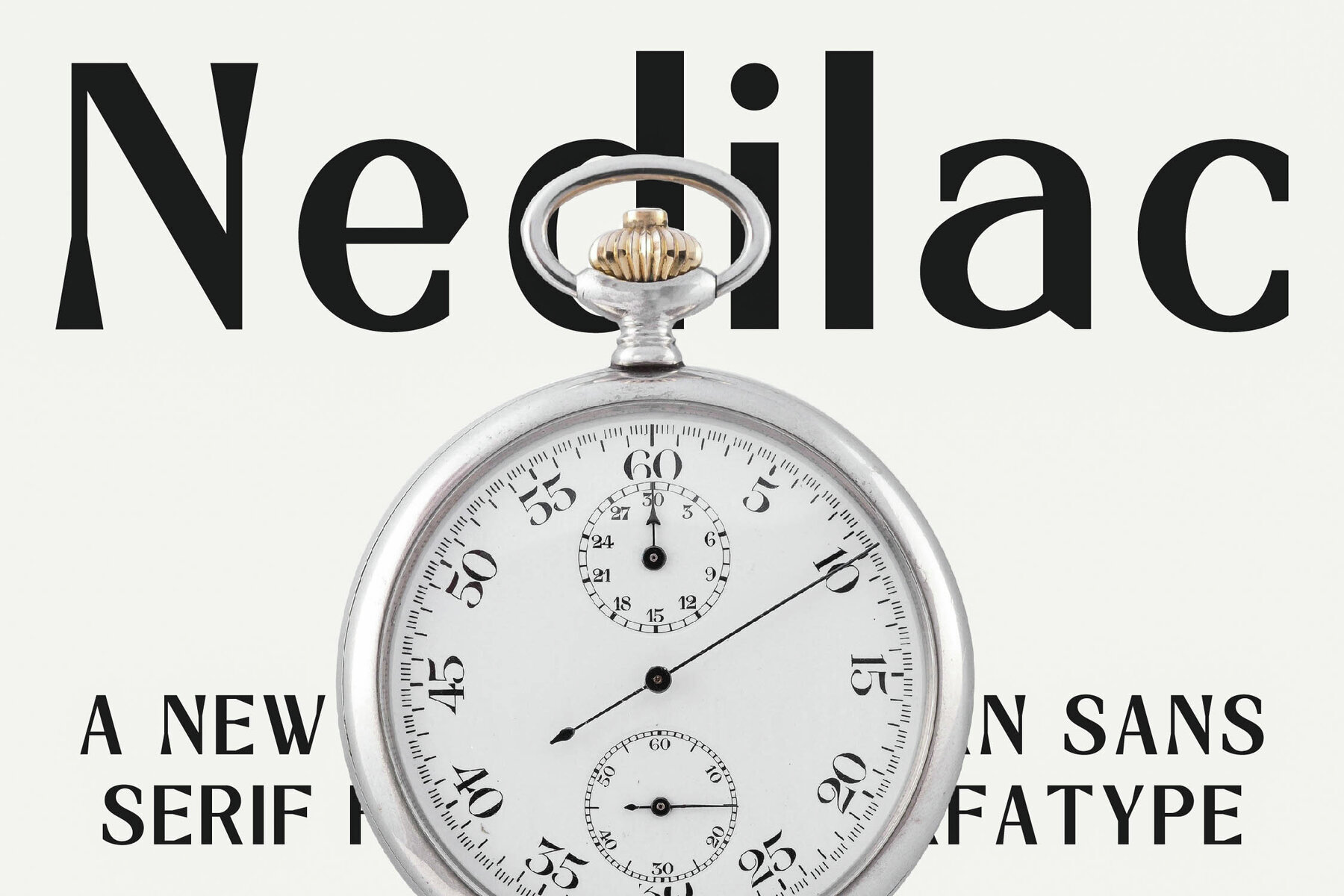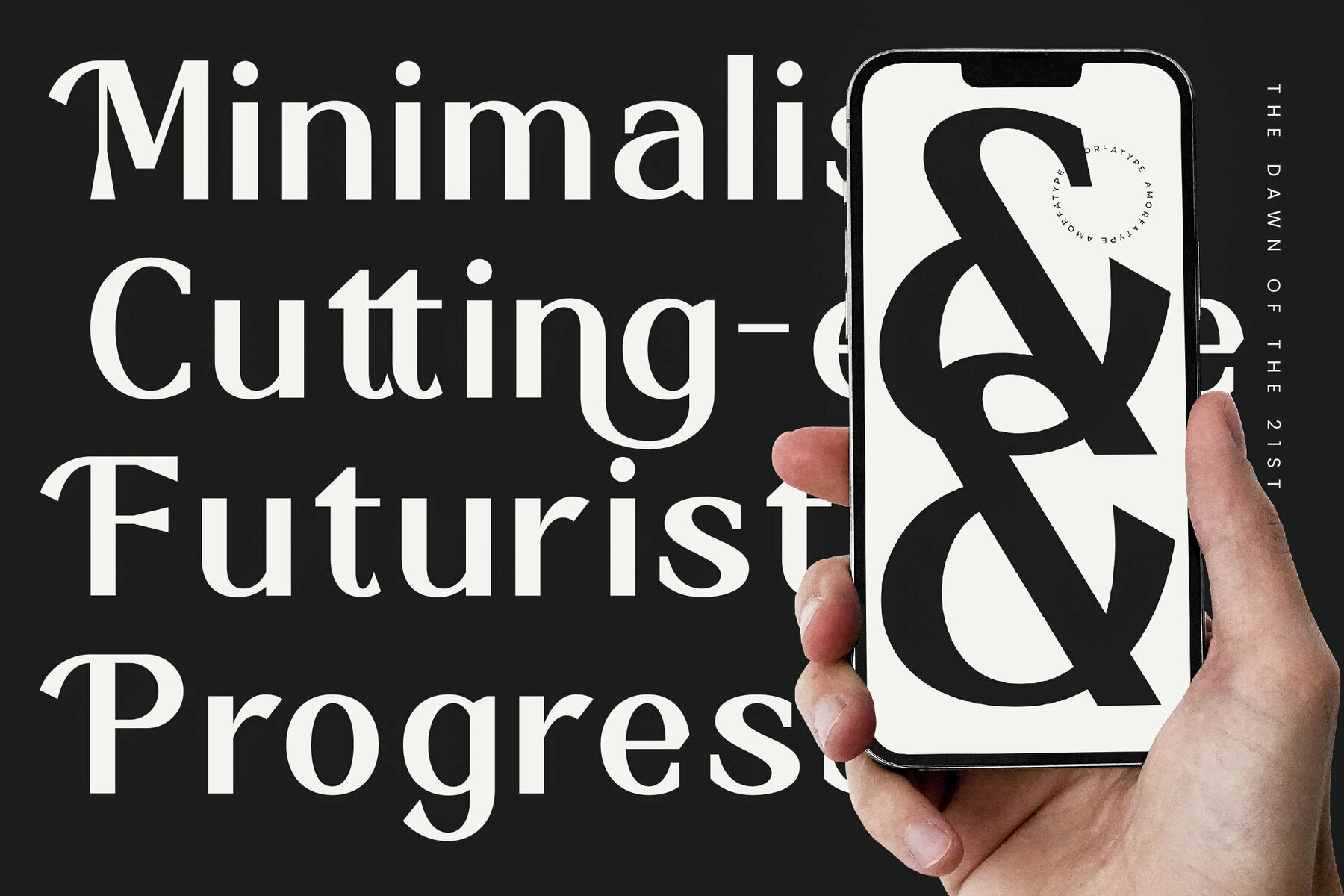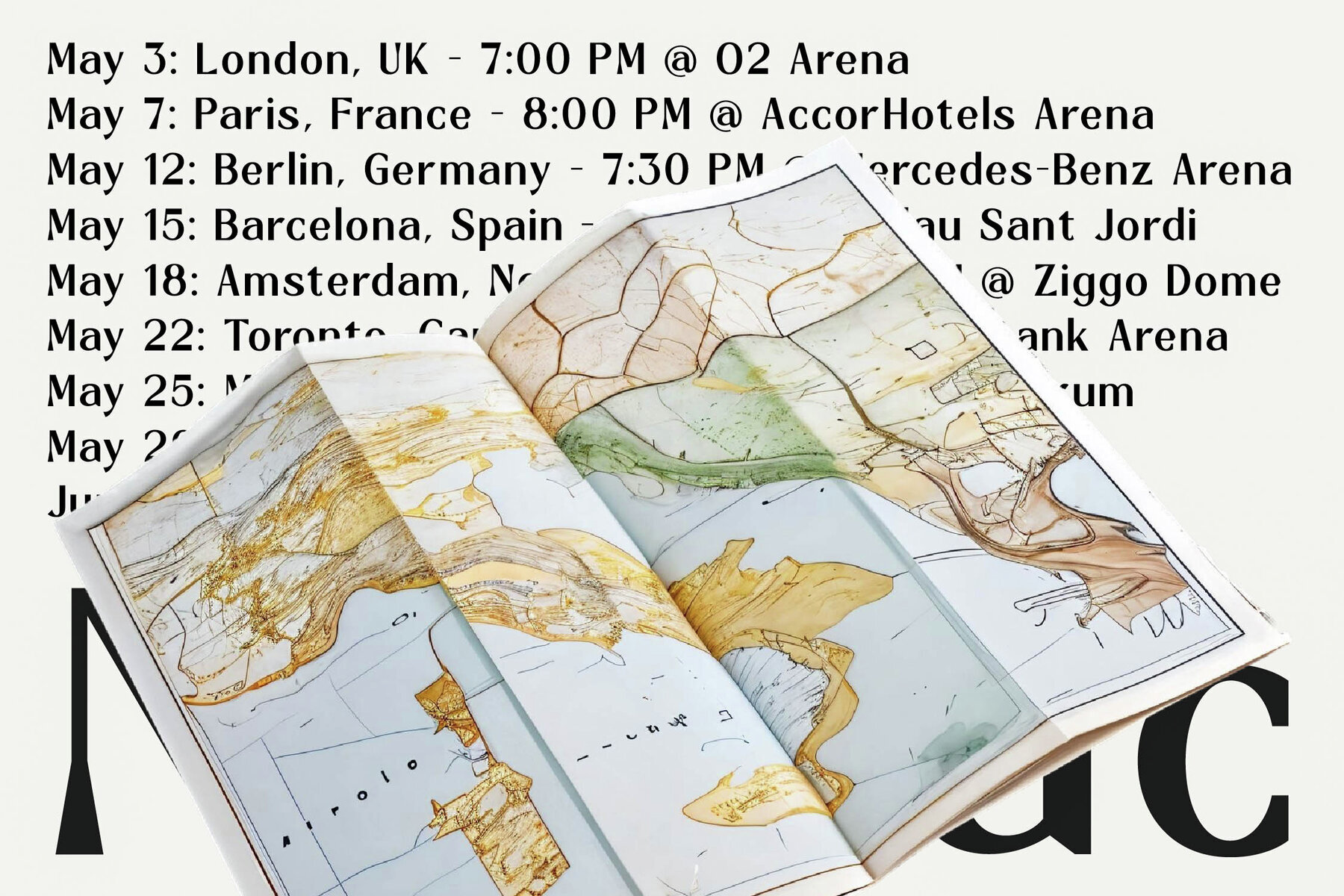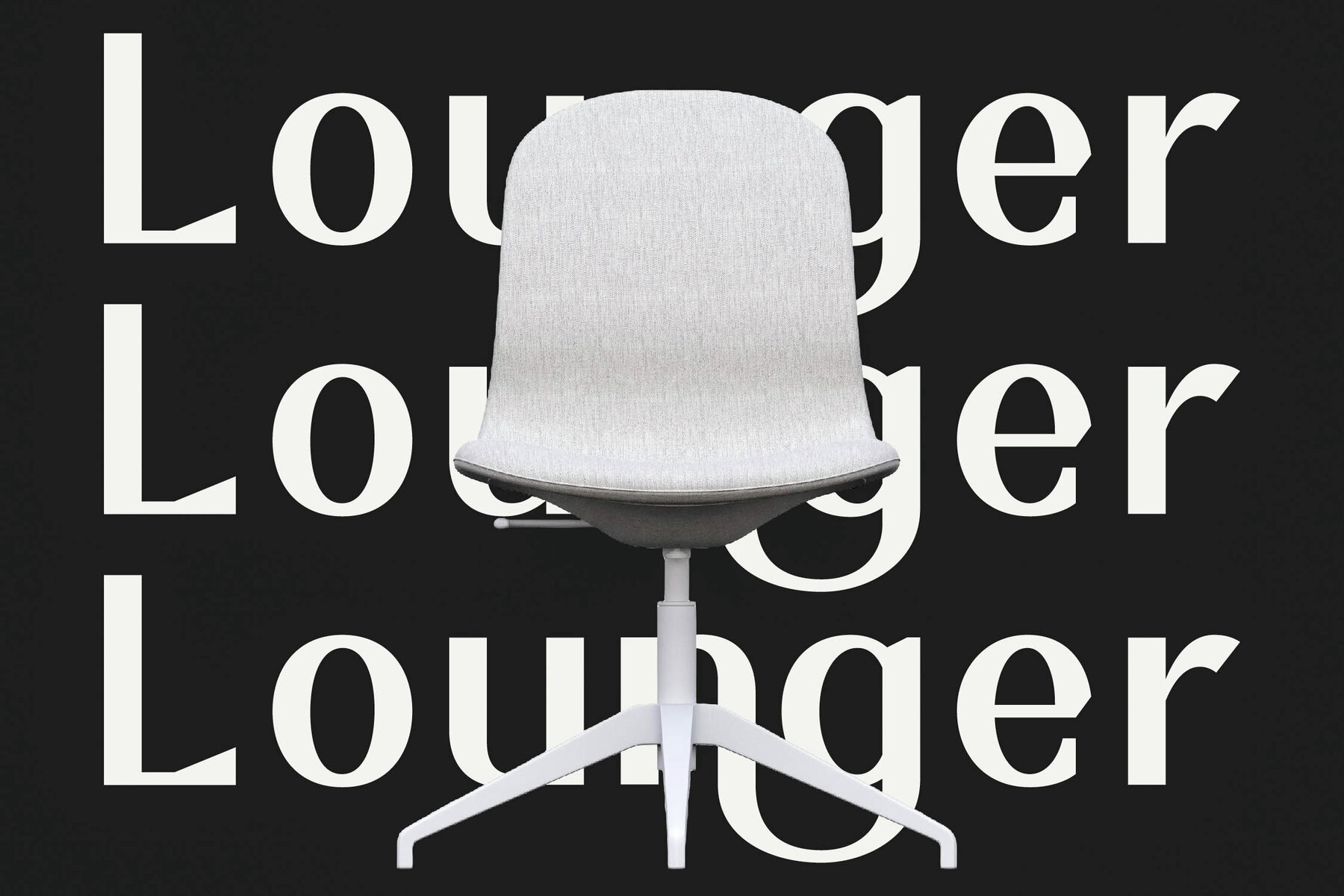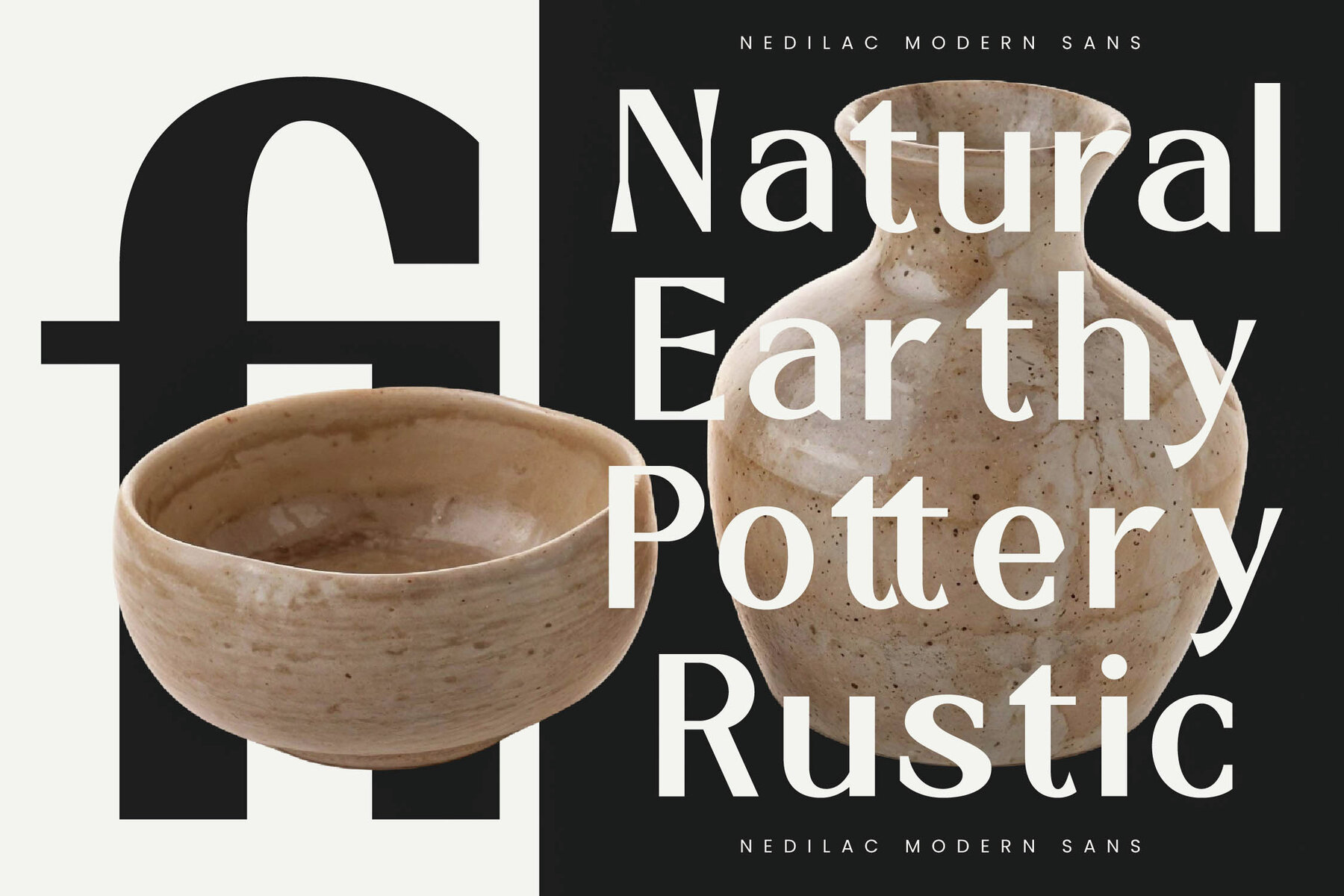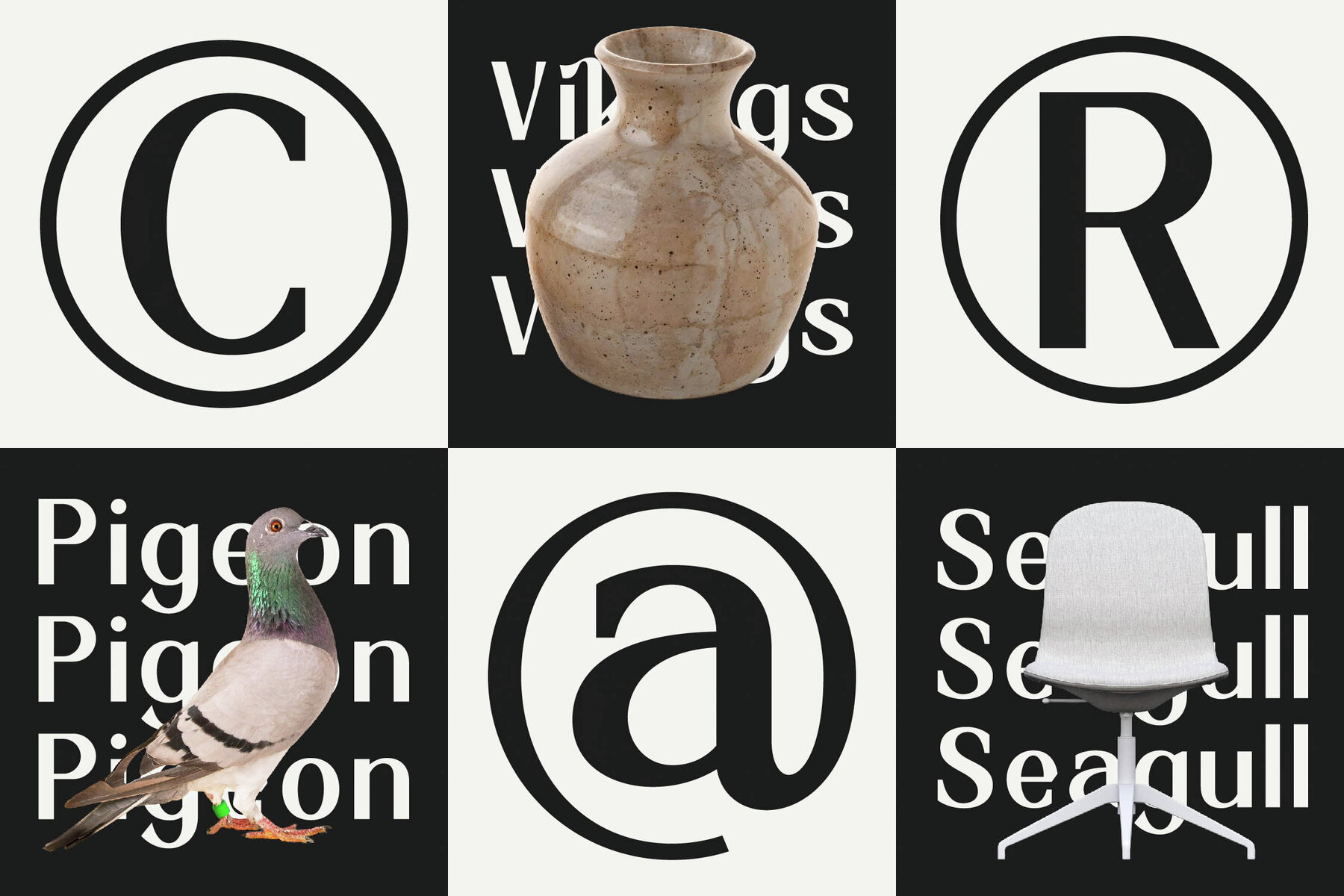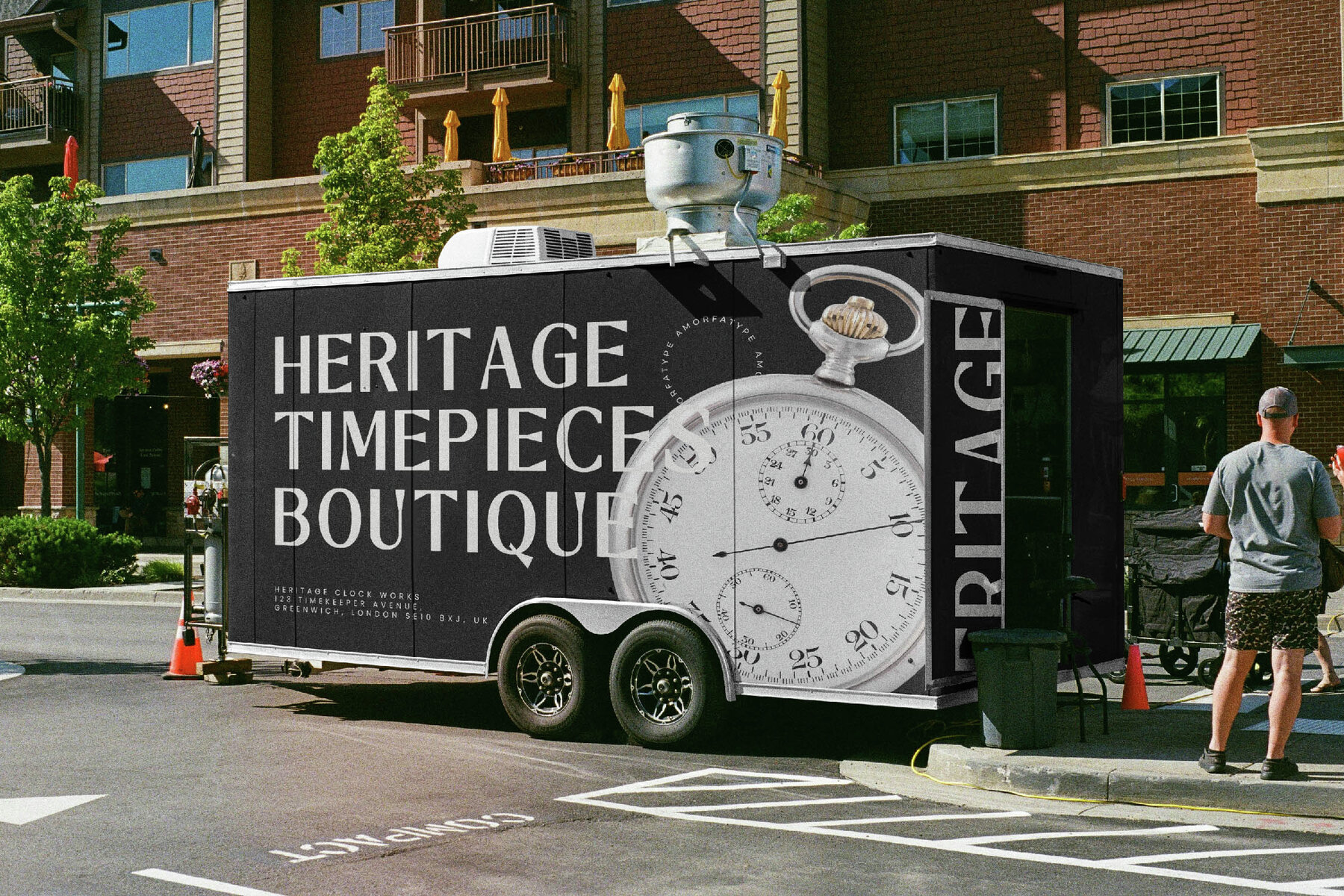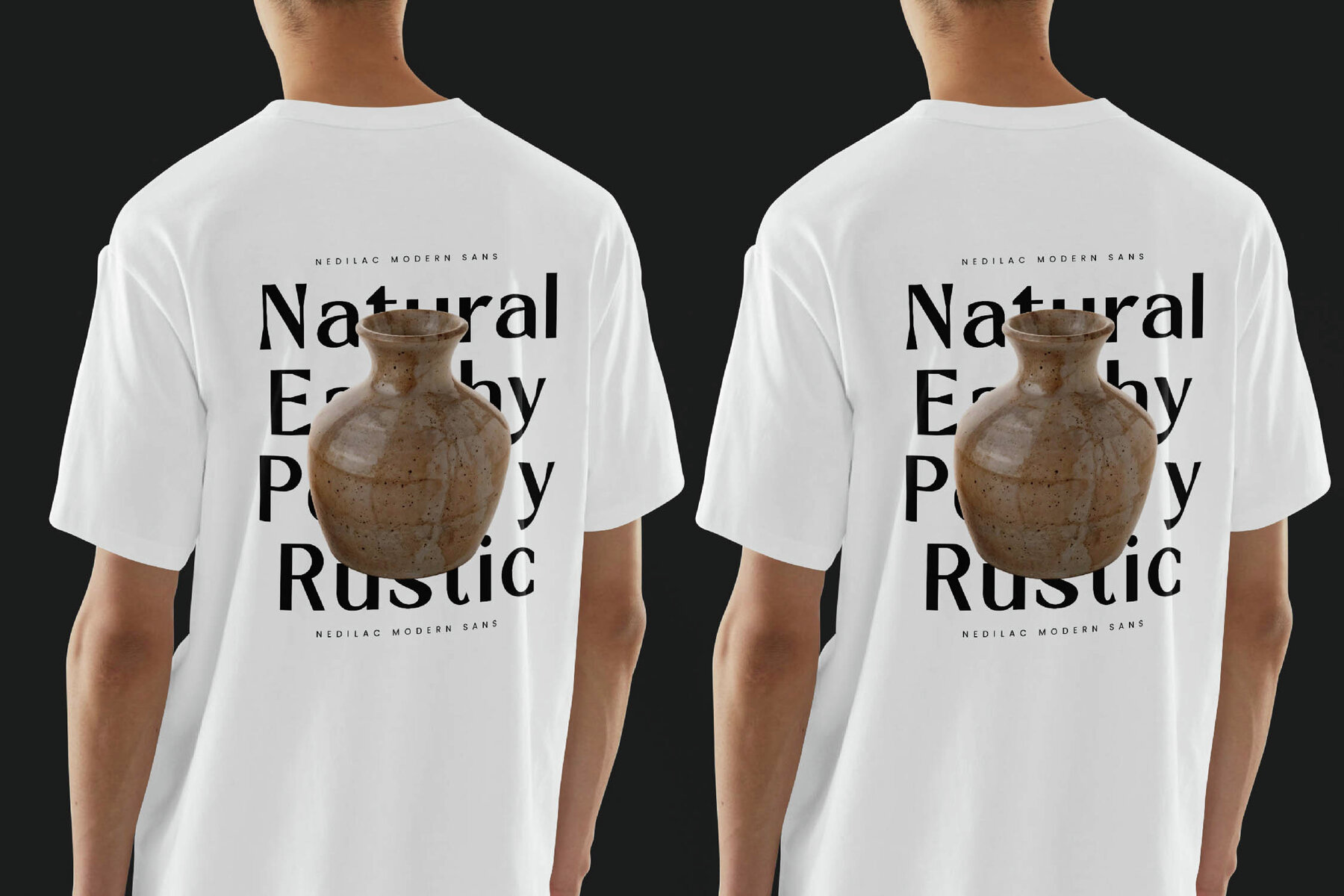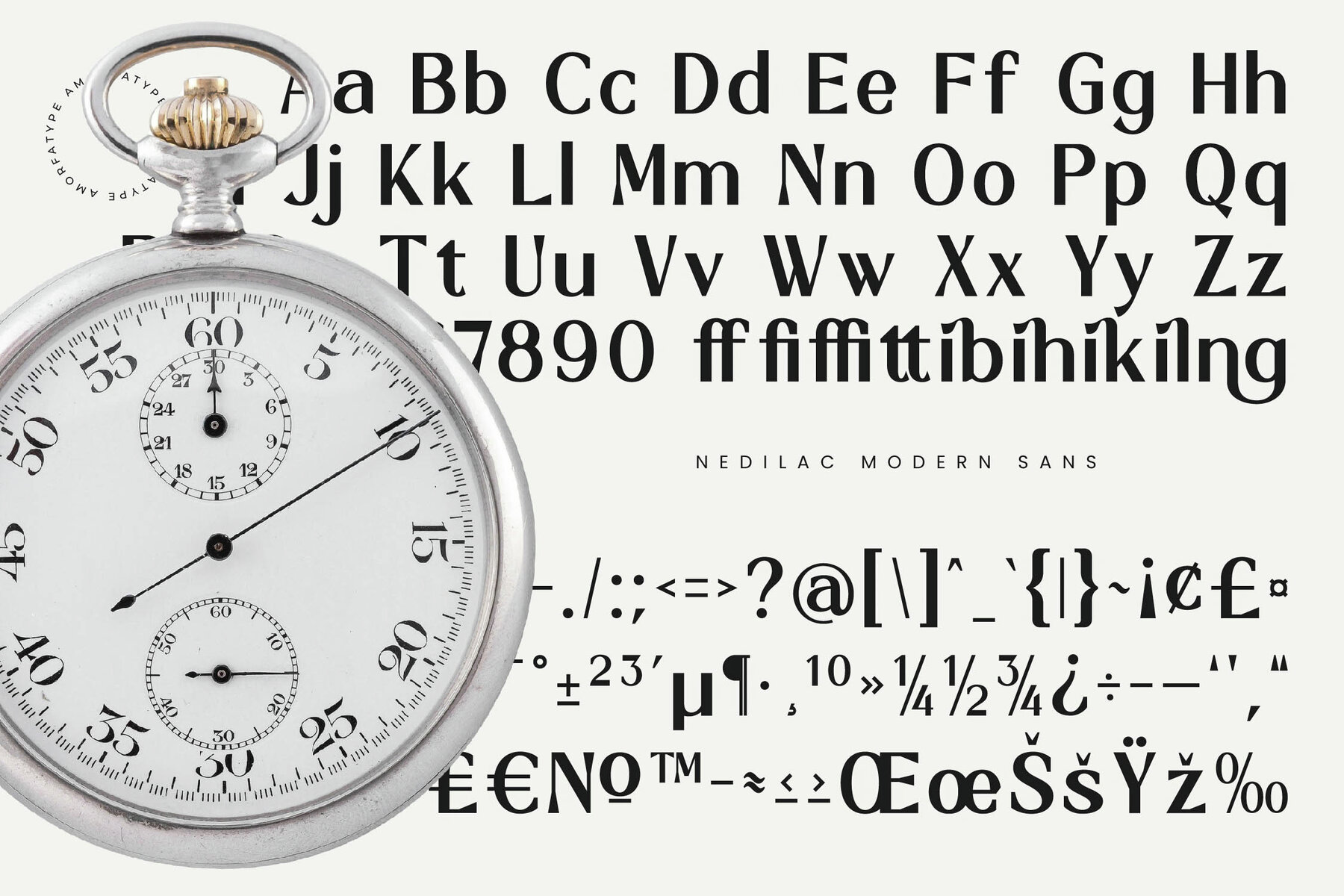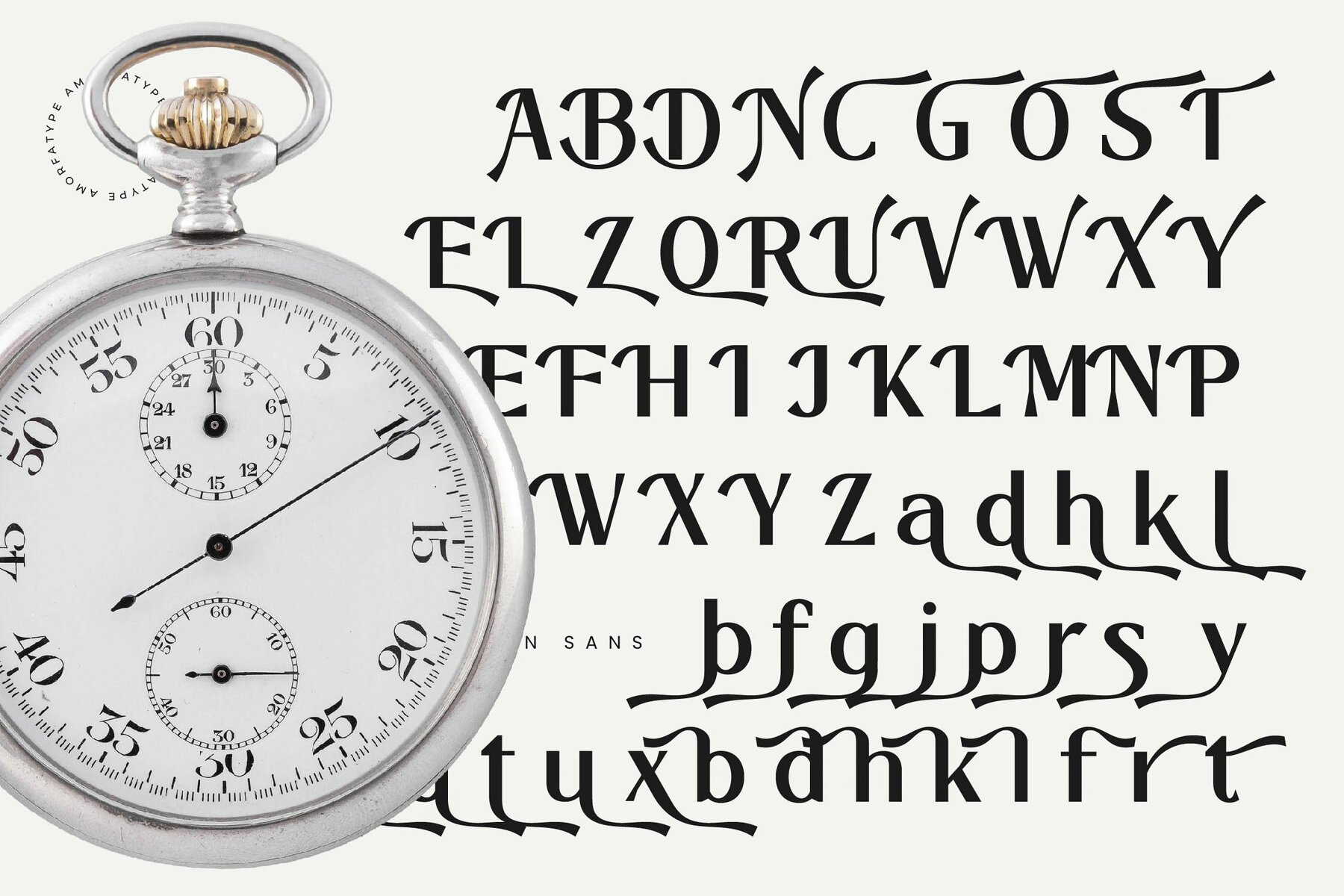
Nedilac Font
Nedilac is a modern sans serif font that perfectly captures the essence of contemporary minimalism with its sleek geometric lines and smooth, rounded edges. This font exudes clarity and elegance, making it an ideal choice for a wide range of creative endeavors. The balanced stroke weights and refined details create a polished and sophisticated appearance, perfect for those seeking simplicity in their designs.
Nedilac's versatility makes it suitable for various applications, from branding and editorial layouts to digital designs. It delivers a clean and distinctive character that stands out in bold headlines and remains legible in smaller text sizes, ensuring both functionality and style. Each letterform is crafted to provide a harmonious reading experience while maintaining a professional, contemporary aesthetic.
Key Features:
- Ligatures, Alternates, and Swashes